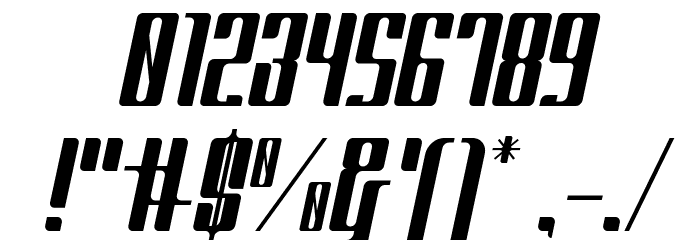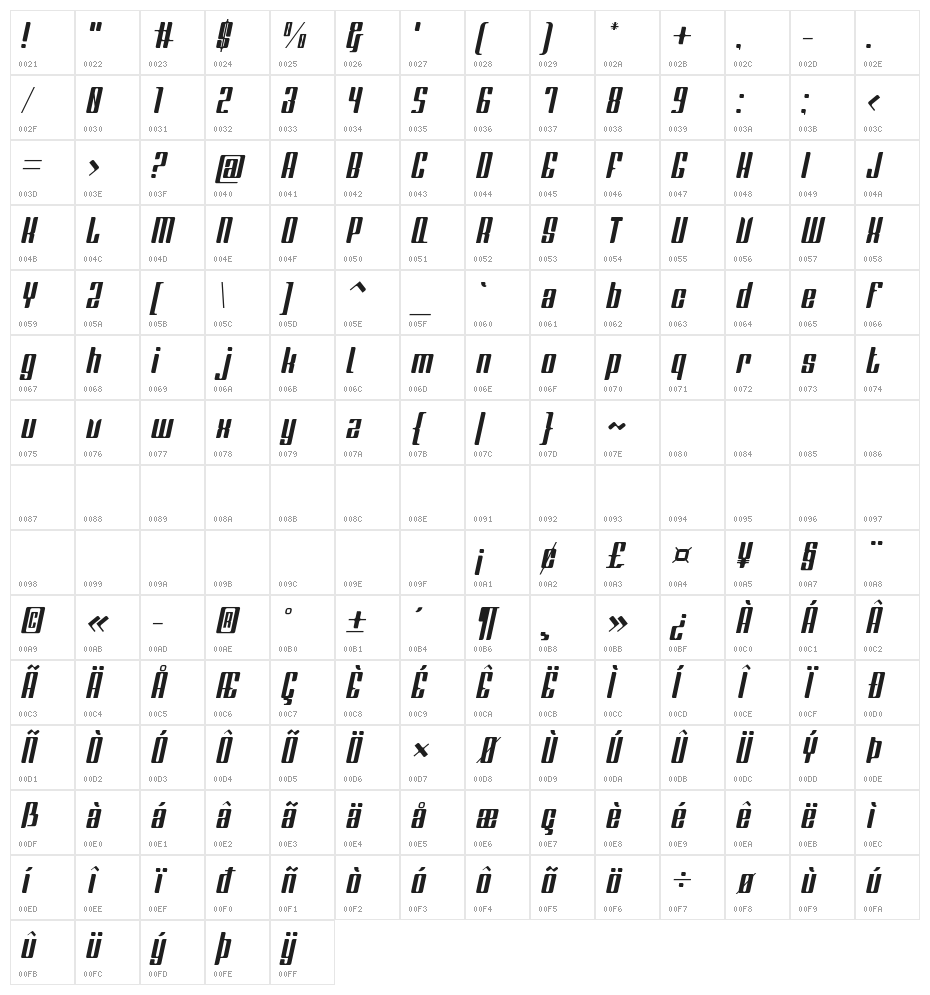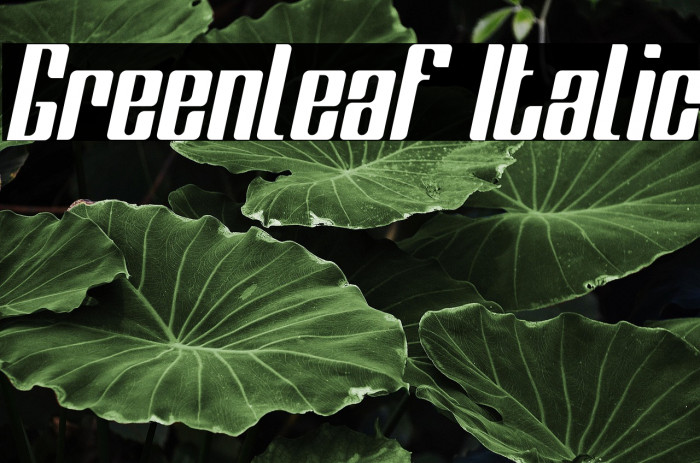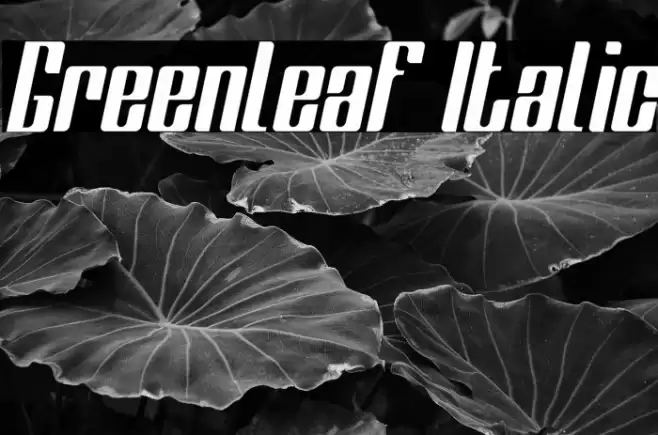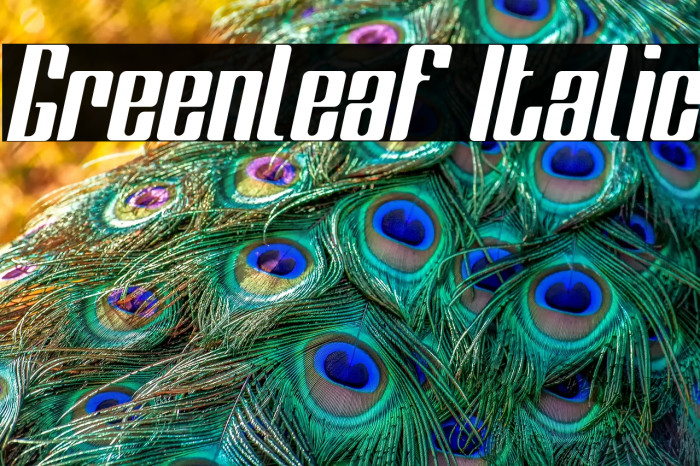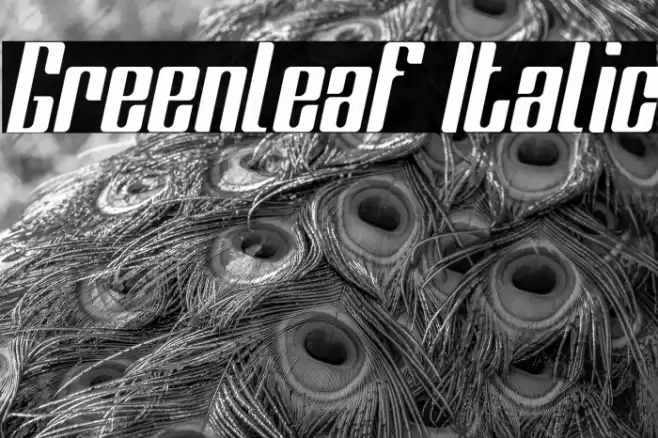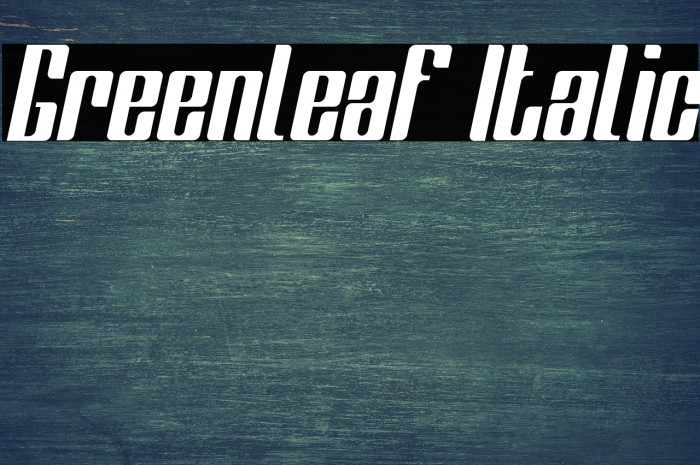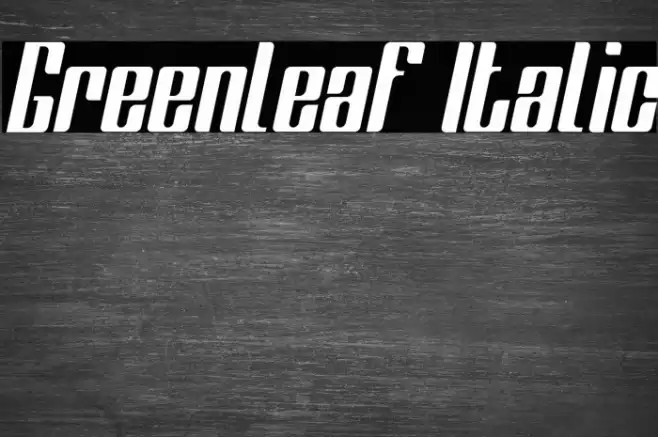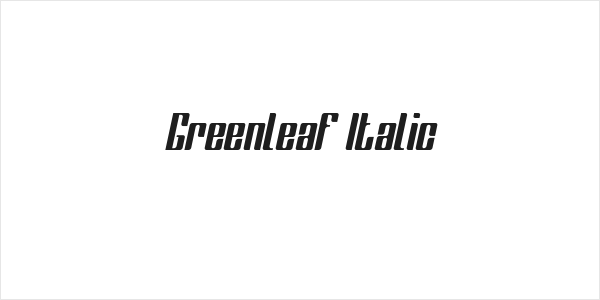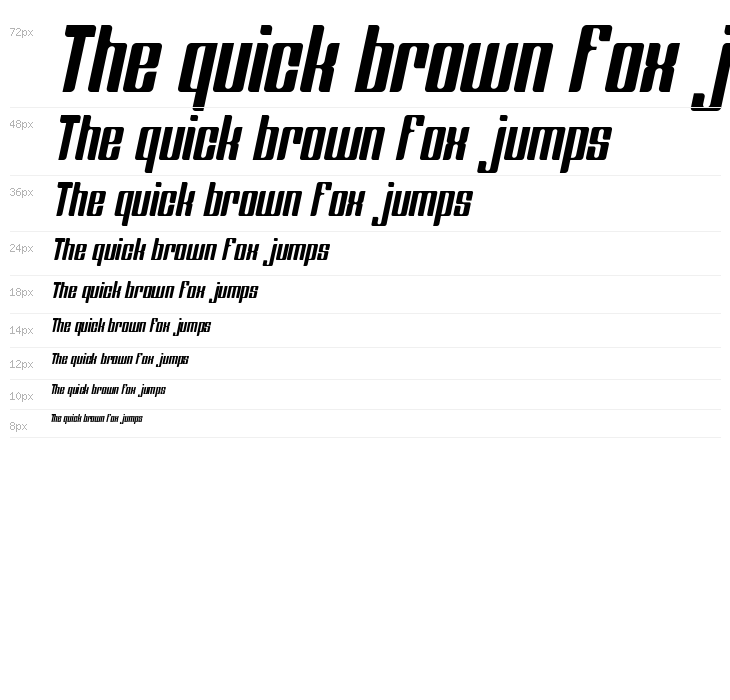
Greenleaf Italic Font
Greenleaf Italic Description
This font features a bold and dynamic italic style, characterized by its strong, angular lines and slightly condensed form. The uppercase letters are tall and commanding, while the lowercase letters maintain a consistent flow, enhancing readability. The numerals are equally bold, ensuring they stand out in any context. Special characters are designed with the same attention to detail, providing a cohesive look across all glyphs. The overall design is modern and sleek, making it suitable for a variety of applications where a strong visual impact is desired.